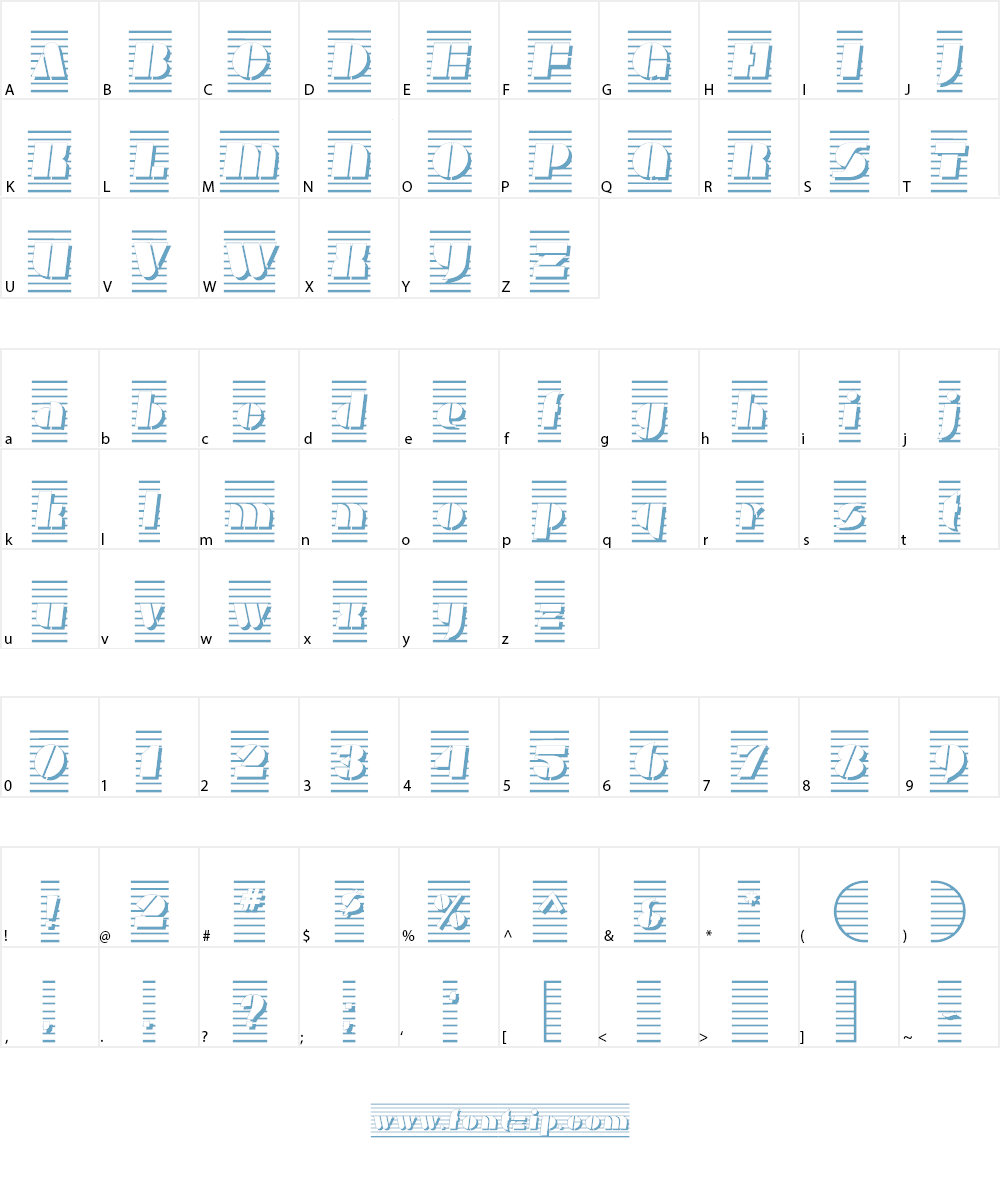
Our House Graphics is pleased to introduce Reo, a stylish two layered
display font with a decidedly retro look and feel. Inspired by the toothy
grins of 1930's and 40's era truck grills, Art Deco fittings and the gleaming
streamlined efficiency of the auto-mat.